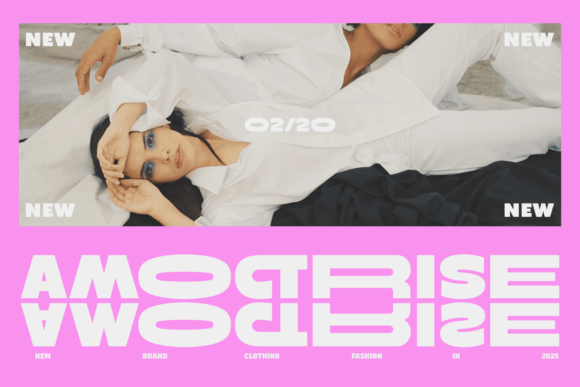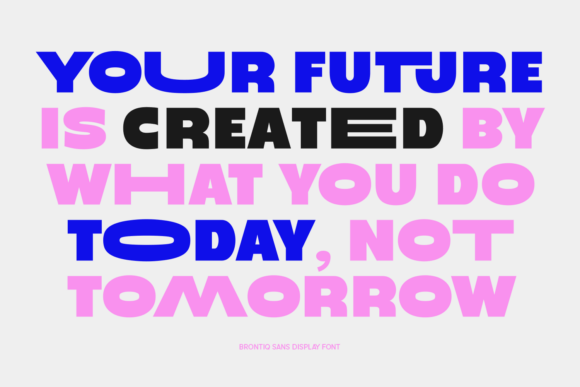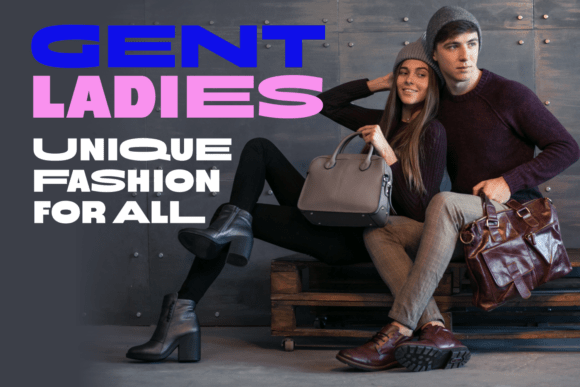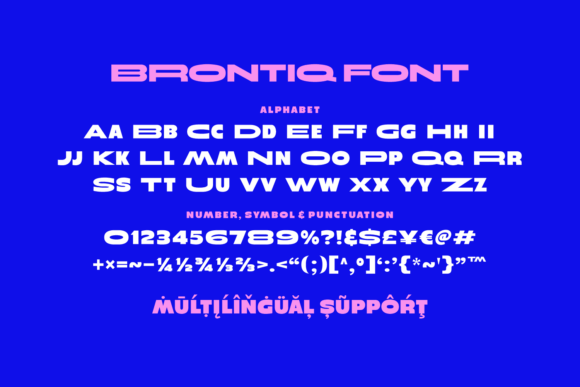
Discover the Perfect Font for Captivating Creativity
Imagine you’re brainstorming a new campaign for your favorite brand, and the perfect idea hits you – a bold, eye-catching visual that grabs attention and leaves a lasting impression. You start envisioning a font that embodies energy, playfulness, and modernity, something that speaks directly to your target audience. This is where the Brontiq Font comes in – a striking display typeface designed to make a statement and leave a lasting impact.
As a designer or marketer, you’re constantly on the lookout for the perfect font to elevate your brand’s visual identity. The Brontiq Font offers a harmonious balance of strength and softness, making it a versatile choice for a wide range of creative projects. Its unique personality and strong visual presence make it an excellent choice for headlines, logos, posters, and social media graphics.
Brontiq Font Key Features
- Font Family: Brontiq is a sans-serif font family designed for digital use, making it suitable for a wide range of applications, including digital signage, web design, and mobile apps.
- Unique Characteristics: Brontiq features a unique, geometric design aesthetic that sets it apart from other sans-serif fonts. Its clean lines, rounded corners, and carefully crafted letterforms make it highly legible and visually appealing.
- Font Styles: Brontiq is available in multiple font styles, including Regular, Bold, Italic, and Bold Italic, providing designers with a range of options to suit their specific needs.
Brontiq Font Review
Overall, I think Brontiq is a solid choice for designers looking for a unique and eye-catching font. ✨ The bold lines and geometric shapes give it a modern, edgy feel that can add some serious visual interest to any project.
- One of the standout features of Brontiq is its versatility. It works well for both display and body text, making it a great option for projects that require a consistent typography throughout.
- The font’s bold lines also make it a great choice for headlines and titles, as they help draw attention to the text and create a sense of hierarchy.
However, I do think there are some limitations to consider. ⚠️ The font’s boldness can sometimes feel overwhelming, and it may not be the best choice for projects that require a more subtle, understated look.
Additionally, the font’s geometric shapes may not be the best fit for projects that require a lot of fine detail or intricate typography.
Overall, I think Brontiq is a great option for designers who want to add some visual interest to their projects, but may not be the best choice for every project. With a little experimentation and planning, however, I think it can be a really effective and eye-catching choice.
Tips for Getting the Most Out of Brontiq Font
Use Brontiq font for creative and eye-catching designs.
Pair Brontiq with other bold or script fonts for a unique look.
Experiment with different font sizes and colors to achieve the desired emphasis.
Brontiq font is ideal for:
Headings and titles
Marketing materials
Wedding invitations
Alternatives to Brontiq Font
Abril Fatface is a modern, elegant script font ideal for formal and luxury branding. It features flowing connections and distinctive letterforms that evoke a sense of sophistication and refinement. Use Abril Fatface for high-end fashion, jewelry, or luxury goods brands.
Compared to Brontiq Font, Abril Fatface has a more refined and elegant feel, making it suitable for more upscale and formal applications.
Carolyna Pro is a stylish, modern script font with a touch of whimsy and romance. It features a unique blend of elegance and playfulness, making it perfect for fashion, beauty, or lifestyle brands. Use Carolyna Pro for creative and artistic projects that require a touch of sophistication and charm.
Q: Is Brontiq available in different weights and styles?
Yes, Brontiq is available in multiple weights, including Light, Regular, Medium, Bold, and ExtraBold. The font also includes italics and condensed styles, allowing you to create a wide range of typographic effects and enhance the visual impact of your designs.